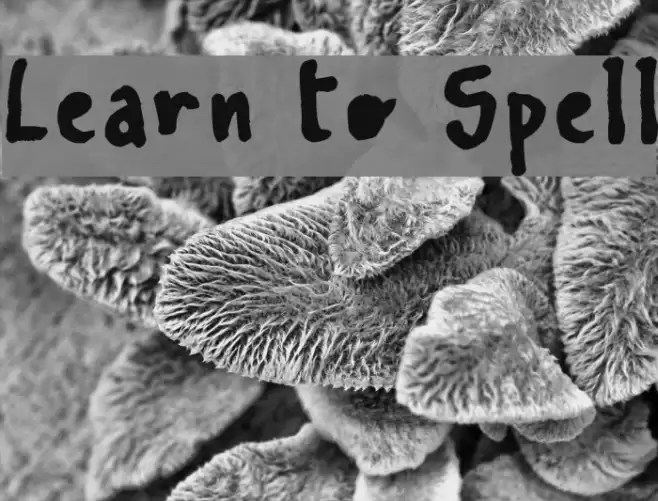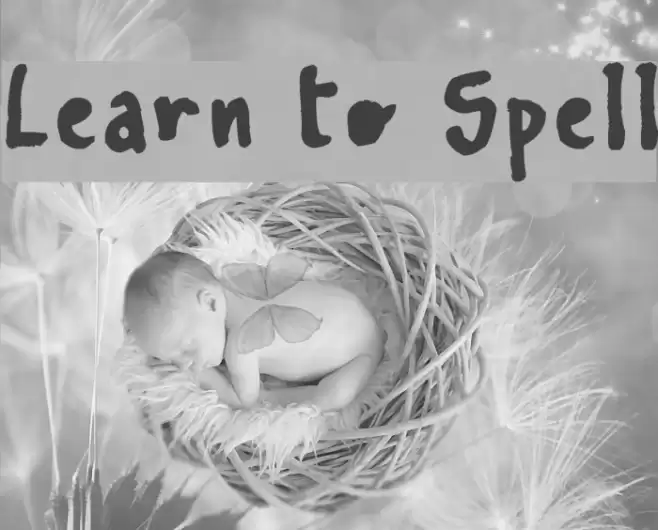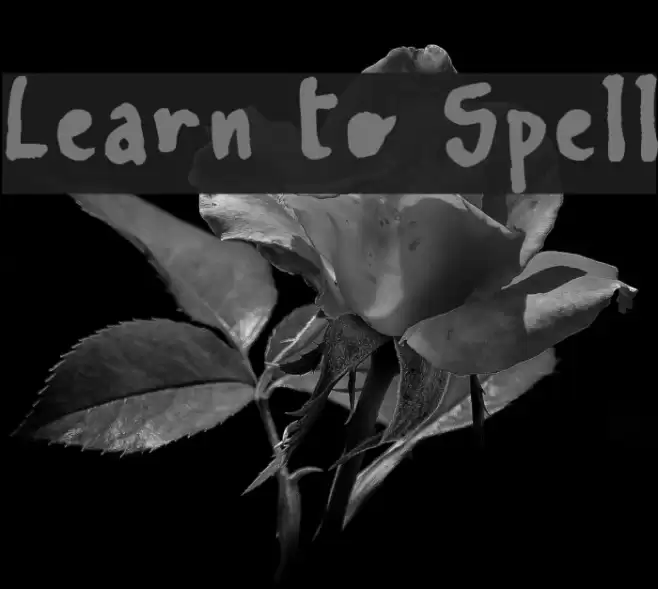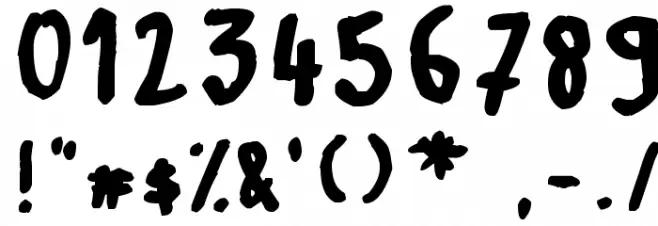
Learn To Spell Font
Learn To Spell Description
This font features a playful and informal handwritten style, characterized by its bold and slightly uneven strokes. The letters have a whimsical and organic feel, with varying heights and widths that give it a lively and dynamic appearance. The uppercase and lowercase letters maintain a consistent style, while the numbers and special characters complement the overall look with their quirky and bold design. This font exudes a sense of creativity and spontaneity, making it ideal for projects that require a personal and approachable touch.
A playful, bold handwritten font with a whimsical and dynamic style from Uncategorized fonts.
- Proposed Projects: Ideal for children's books, creative posters, casual invitations, and playful branding.
- Overall Style: Playful
- Use Case: Headlines, Logos, Informal Text